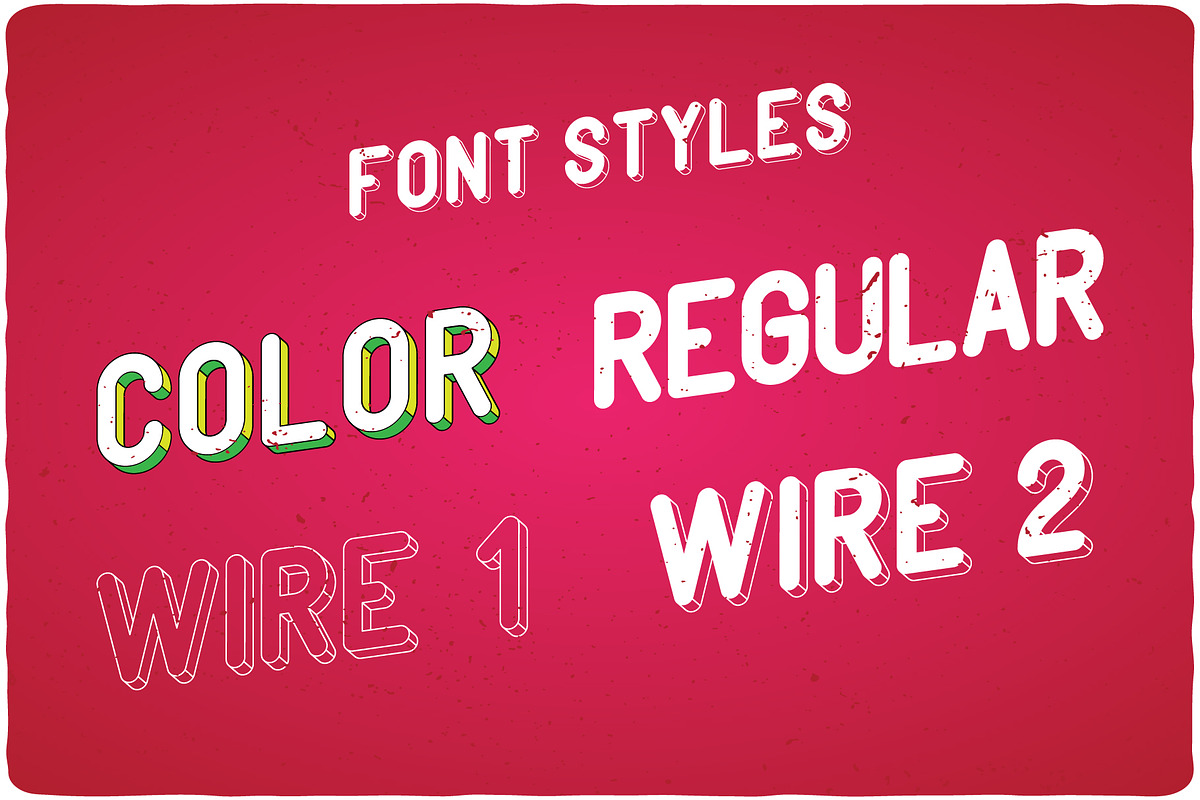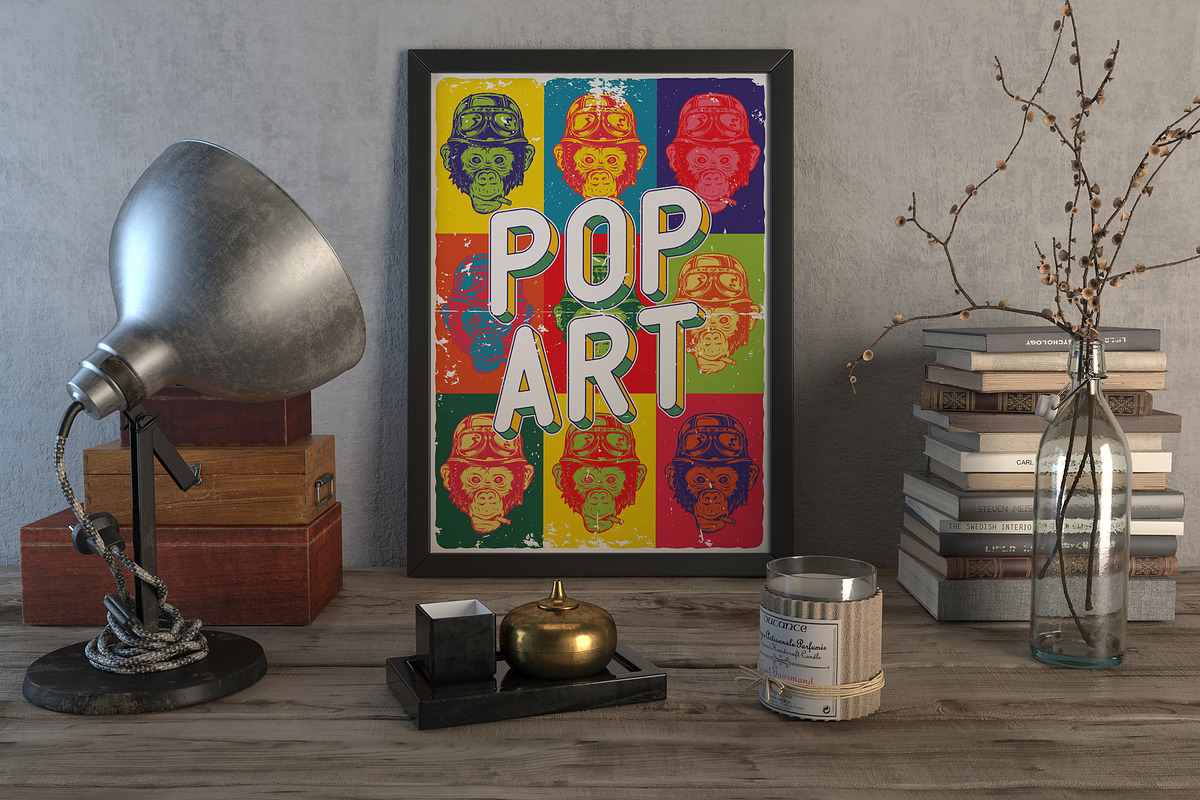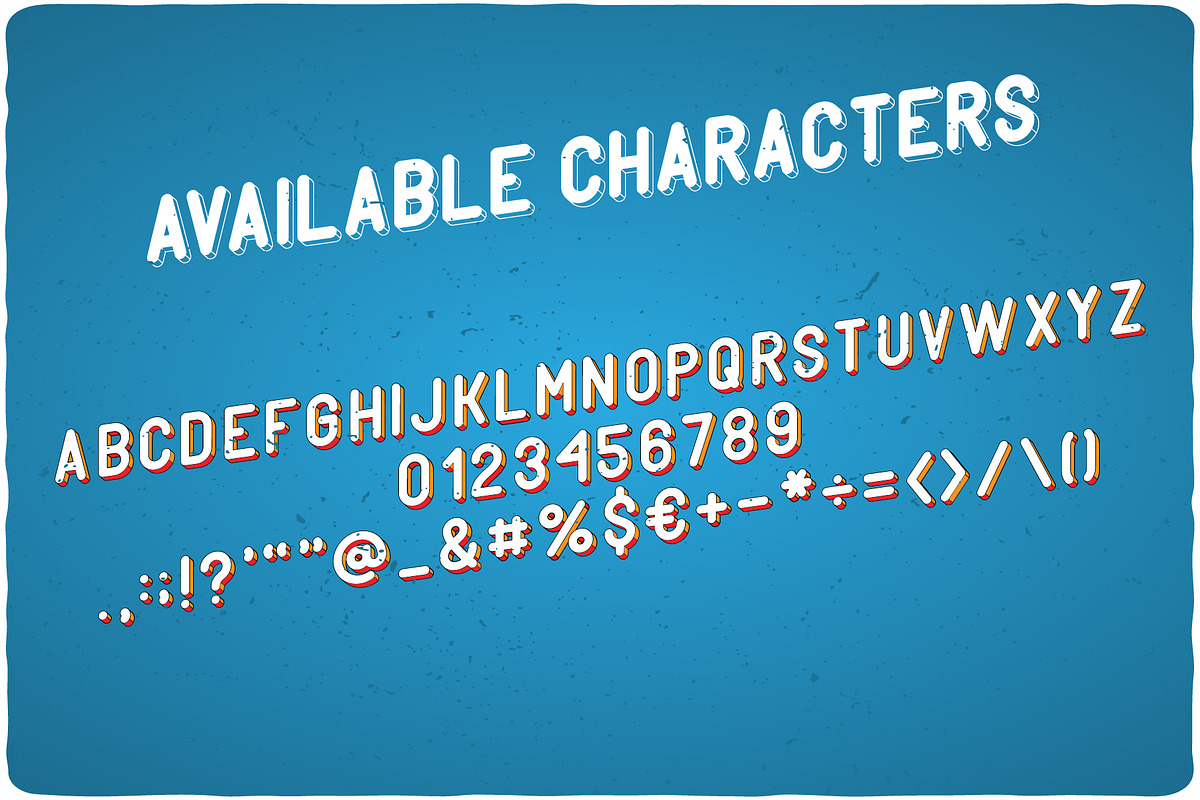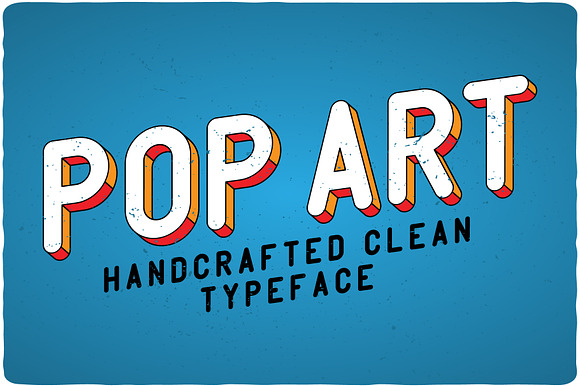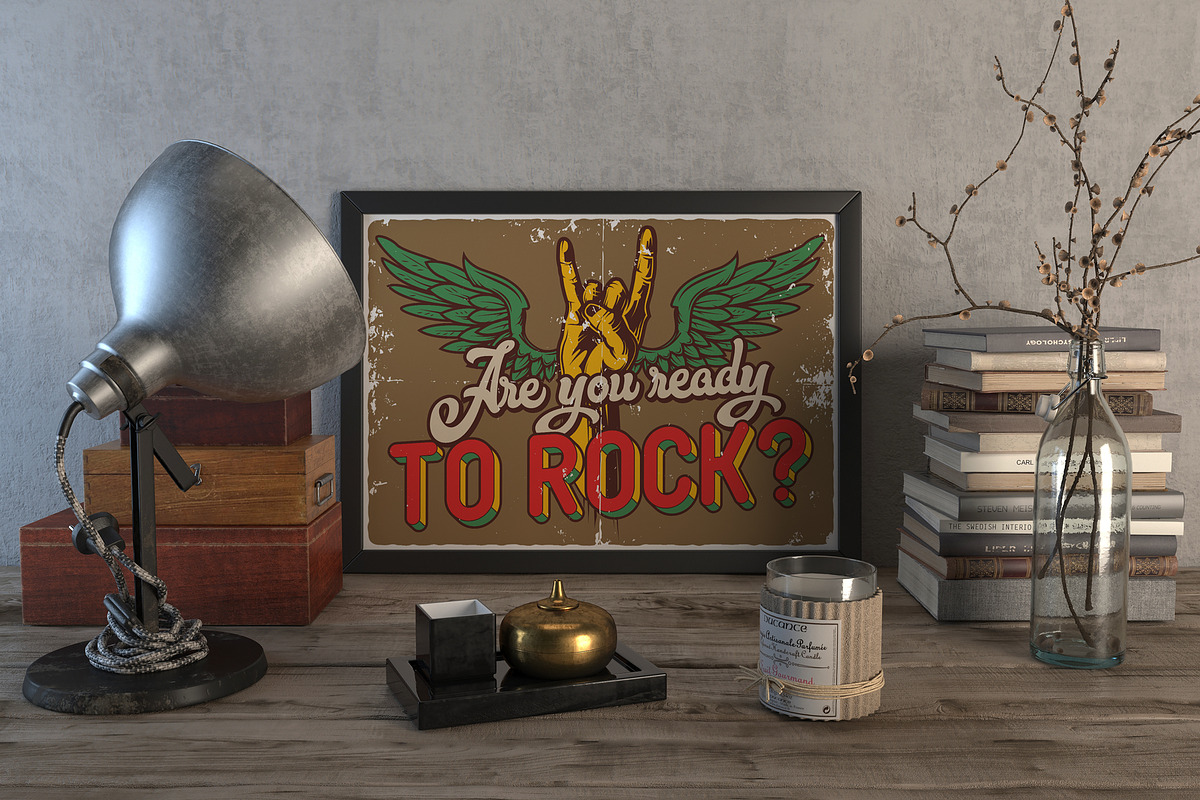
PopArt typeface
Introducing a vintage look label typeface named "PopArt". This typeface includes four styles, for sample look at 4th preview. This font contains set of numbers and additional symbols. This typeface will look good on any vintage style design like labels, badges, posters, t-shirts etc.
- This typeface includes four styles, for sample look at 4th preview.
- This font contains set of numbers and additional symbols.